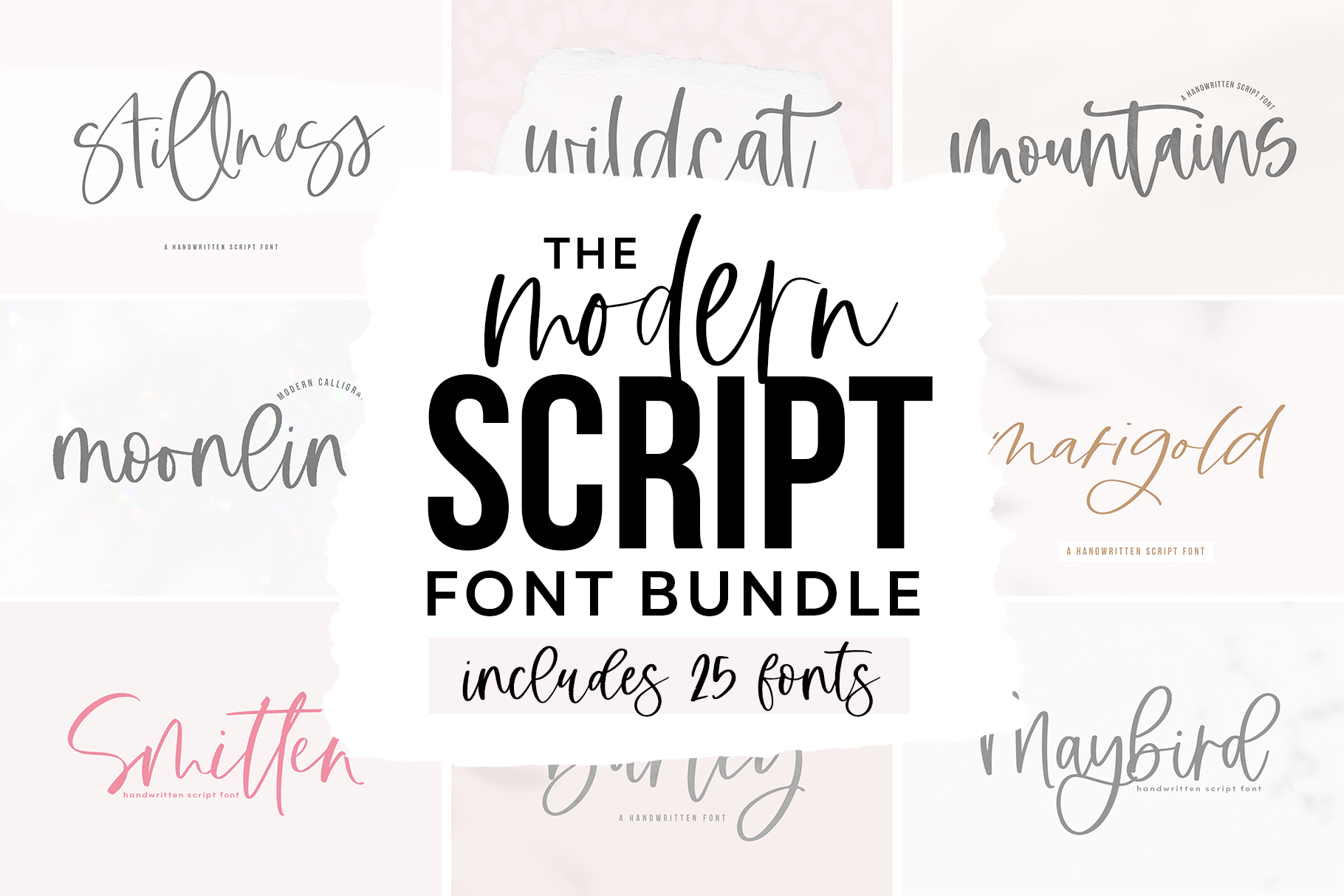
THE MODERN SCRIPT FONT BUNDLE
This bundle includes 25 of my favorite script fonts - all in a modern calligraphy handwritten style.
Inside of this bundle, you will find 4 NEW fonts!
These fonts are perfect for branding, logos, wedding invitations, home decor, farmhouse signs, wedding decor, craft projects, websites, social media and more!
Includes --
- Tangerine
- Maybird
- Girlfriend
- Clarity
- Barley
- Stillness
- Mountains
- Wildcat
- Moonline
- Silverway
- Smitten
- Islander
- Maybe
- Melbourne
- Tropical Coast
- Kindness
- Kindheart
- Happiness
- Marigold
- Ocean Cabanna
- Free Spirit
- Firefly
- Bluebird
- Honeybun
- Heartland
Most (but not all) accent characters are included in most fonts.